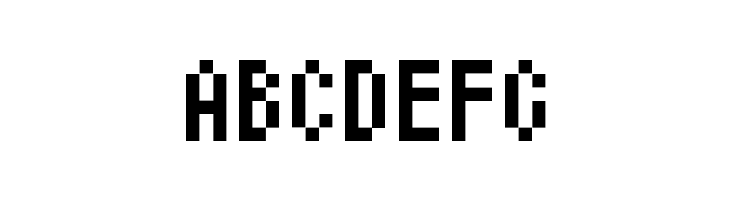
Strikelord Gradient Font
- Font: Strikelord Gradient
( Font by Sven Stuber - www.superlooper.de )
A pixelated, blocky font with a retro digital aesthetic.